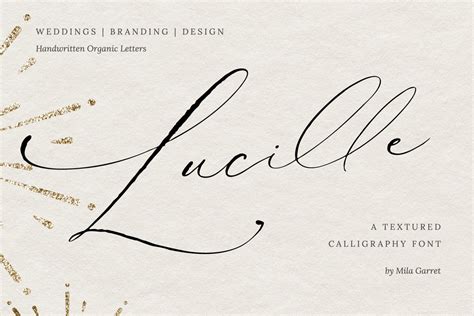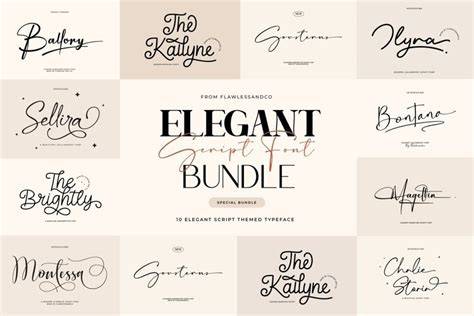
Best Script Fonts For Elegant Designs
Readers, have you ever been captivated by a design that seems to exude sophistication and charm? Often, the secret ingredient lies within the choice of font. Script fonts, with their flowing curves and graceful characters, possess an inherent elegance that can elevate any design project. But navigating through the vast world of script fonts can feel overwhelming. You want the perfect font to encapsulate the essence of your design, but with so many options, where do you even begin?
Don't worry, we've got you covered. As seasoned designers who have explored the realm of script fonts extensively, we've compiled a list of the best script fonts for creating elegant and captivating designs. We'll dive deep into each font, highlighting its unique characteristics and how it can be used to achieve stunning visual results. So, buckle up and prepare to embark on a journey into the world of script fonts!
Understanding the Essence of Script Fonts
Script fonts, often referred to as cursive fonts, are inspired by handwritten calligraphy. They emulate the fluid strokes of a pen, adding a touch of personality and artistry to text. This handwritten quality brings a sense of warmth, authenticity, and elegance that other font styles may lack. It's no wonder that script fonts have become a staple in branding, wedding invitations, and other projects where a touch of sophistication is desired.
The key to choosing the right script font lies in understanding its unique characteristics. Some fonts are more formal and traditional, while others are playful and contemporary. The weight, slant, and embellishments of a script font all contribute to its overall feel. By carefully selecting a script font, you can communicate a specific mood or message to your audience.
The Power of Script Fonts
Script fonts possess a unique power to evoke a certain charm and sophistication. They add a touch of warmth and personality to text, making it more engaging and inviting. From logos to invitations, script fonts can elevate any design project.
One of the primary reasons script fonts are so effective is their ability to create a sense of handwritten elegance. They mimic the graceful strokes of a pen, bringing a touch of authenticity and artistry to the design. This handwritten quality resonates with audiences, making them feel a connection with the message.
Script fonts are incredibly versatile. They can be used for a wide range of projects, from formal invitations and elegant branding to playful website designs and social media graphics. Their adaptability makes them a valuable asset for any designer's toolkit.
Exploring Script Font Styles
Script fonts come in a wide range of styles. Each style reflects a different aesthetic and evokes distinct emotions. Here are some common styles to consider:
**Formal Script Fonts:** These fonts tend to be more traditional and sophisticated. They often feature elegant curves and swashes, perfect for projects that call for a refined and timeless look. Examples include Playfair Display, Lora, and Dancing Script.
**Casual Script Fonts:** This category includes fonts that are more laid-back and approachable. They often feature simpler strokes and a more relaxed feel. Examples include Pacifico, Amatic SC, and Lobster Two.
**Modern Script Fonts:** These fonts embrace contemporary design principles. They often feature clean lines, minimal embellishments, and a sleek aesthetic. Examples include Montserrat, Lato, and Open Sans.
**Bold Script Fonts:** Bold script fonts make a statement with their strong strokes and dramatic curves. They are often used to add a touch of drama or emphasize specific text elements. Examples include Brush Script, Alex Brush, and Blackoak.
Top Script Fonts for Elegant Designs
Now that we've explored the world of script fonts, let's dive into a curated list of the best script fonts for achieving elegance in your designs. These fonts have been carefully selected for their versatility, beauty, and readability.
1. Playfair Display
Playfair Display is a serif font that embodies elegance and sophistication. Its unique character shapes and bold strokes add a touch of drama to any design. It's particularly well-suited for headlines, titles, and branding elements.
Playfair Display is renowned for its versatility. Its elegant aesthetic can be applied to various projects, from formal invitations to sophisticated website designs. Its readability ensures that your message remains clear and engaging, even with its bold strokes and unique character shapes.
2. Lora
Lora is a serif font that embodies elegance and readability. Its classic design and graceful curves make it a perfect choice for body text, particularly in projects that require a touch of sophistication.
Lora is renowned for its exceptional readability. Its clear character shapes and consistent spacing ensure that text remains easy to read, even at smaller sizes. This makes it ideal for long-form content and projects where readability is paramount.
3. Dancing Script
Dancing Script is a script font that captures the essence of handwritten calligraphy. Its fluid strokes and playful curves make it a perfect choice for adding a touch of charm and personality to any design.
Dancing Script is incredibly versatile. It can be used for a wide range of projects, from invitations and logos to social media graphics and website designs. Its playful aesthetic adds a touch of warmth and whimsy to any design, making it a popular choice for projects aimed at a younger audience.
4. Pacifico
Pacifico is a casual script font that exudes a laid-back and approachable vibe. Its simple strokes and rounded curves make it a perfect choice for projects that require a touch of playfulness and warmth.
Pacifico is incredibly versatile. It can be used for a wide range of projects, from website designs and social media graphics to logos and branding elements. Its ability to blend seamlessly with various design styles makes it a valuable asset for any designer's toolkit.
5. Amatic SC
Amatic SC is a casual script font that embodies a playful and quirky aesthetic. Its unique character shapes and bold strokes make it a perfect choice for adding a touch of personality to any design.
Amatic SC is incredibly versatile. It can be used for a wide range of projects, from website designs and social media graphics to logos and branding elements. Its ability to stand out from the crowd makes it a popular choice for projects aimed at a younger audience.
6. Lobster Two
Lobster Two is a playful script font that exudes a fun and whimsical aesthetic. Its distinctive character shapes and strong strokes make it a perfect choice for adding a touch of personality to any design.
Lobster Two is incredibly versatile. It can be used for a wide range of projects, from website designs and social media graphics to logos and branding elements. Its ability to attract attention makes it a popular choice for projects aimed at a younger audience.
7. Montserrat
Montserrat is a modern script font that embodies a clean and minimalist aesthetic. Its sharp edges and geometric shapes make it a perfect choice for projects that require a touch of sophistication and modernity.
Montserrat is incredibly versatile. It can be used for a wide range of projects, from website designs and social media graphics to logos and branding elements. Its ability to create a sense of professionalism and sleekness makes it a popular choice for projects aimed at a discerning audience.
8. Lato
Lato is a modern script font that embodies a clean and minimalist aesthetic. Its sharp edges and geometric shapes make it a perfect choice for projects that require a touch of sophistication and modernity.
Lato is incredibly versatile. It can be used for a wide range of projects, from website designs and social media graphics to logos and branding elements. Its ability to create a sense of professionalism and sleekness makes it a popular choice for projects aimed at a discerning audience.
9. Open Sans
Open Sans is a modern script font that embodies a clean and minimalist aesthetic. Its sharp edges and geometric shapes make it a perfect choice for projects that require a touch of sophistication and modernity.
Open Sans is incredibly versatile. It can be used for a wide range of projects, from website designs and social media graphics to logos and branding elements. Its ability to create a sense of professionalism and sleekness makes it a popular choice for projects aimed at a discerning audience.
10. Brush Script
Brush Script is a bold script font that embodies a dramatic and expressive aesthetic. Its thick strokes and flowing curves make it a perfect choice for adding a touch of personality and impact to any design.
Brush Script is incredibly versatile. It can be used for a wide range of projects, from website designs and social media graphics to logos and branding elements. Its ability to attract attention makes it a popular choice for projects aimed at a creative and expressive audience.
11. Alex Brush
Alex Brush is a bold script font that embodies a dramatic and expressive aesthetic. Its thick strokes and flowing curves make it a perfect choice for adding a touch of personality and impact to any design.
Alex Brush is incredibly versatile. It can be used for a wide range of projects, from website designs and social media graphics to logos and branding elements. Its ability to attract attention makes it a popular choice for projects aimed at a creative and expressive audience.
12. Blackoak
Blackoak is a bold script font that embodies a dramatic and expressive aesthetic. Its thick strokes and flowing curves make it a perfect choice for adding a touch of personality and impact to any design.
Blackoak is incredibly versatile. It can be used for a wide range of projects, from website designs and social media graphics to logos and branding elements. Its ability to attract attention makes it a popular choice for projects aimed at a creative and expressive audience.
Tips for Using Script Fonts in Your Designs
Script fonts, with their inherent elegance and charm, can elevate any design project. However, using them effectively requires a keen understanding of their strengths and limitations. Here are some tips to help you make the most of these beautiful fonts:
1. Choose the Right Font for the Occasion
Remember, not all script fonts are created equal. Each font has its own personality and aesthetic. Consider the tone and message of your design and select a font that aligns with it. For formal projects, a traditional script font like Playfair Display or Lora might be the perfect choice. For more playful projects, a casual script font like Pacifico or Amatic SC might be a better fit.
2. Balance Script Fonts with Other Styles
Script fonts are often used in combination with other font styles, such as sans-serif or serif fonts. This creates a visually appealing contrast and adds depth to the design. For example, you might use a script font for a headline and a sans-serif font for body text. This combination allows for a balanced design that is both aesthetically pleasing and easy to read.
3. Use Script Fonts Sparingly
Script fonts work best when used sparingly. Too much script font can overwhelm the design and make it difficult to read. Use them for key elements, such as headlines, titles, and branding elements.
4. Pay Attention to Readability
Readability is crucial, especially when using script fonts. Some script fonts, with their flowing curves and complex strokes, can be difficult to read, particularly at smaller sizes. When selecting a script font, choose one that is legible and ensure that the kerning and spacing are appropriate.
5. Consider the Font Weight
The weight of a script font can significantly impact its overall feel. Light or thin weights provide a delicate and graceful aesthetic, while bold weights create a more dramatic and impactful effect. Choose a font weight that aligns with the tone and message of your design.
6. Pay Attention to Letter Spacing
Letter spacing, also known as kerning, plays a crucial role in readability. Adjust the letter spacing to ensure that the letters are spaced appropriately, making the text easy to read. Too much spacing can make the text look sparse, while too little spacing can make it feel cramped.
7. Experiment with Color
Color can transform a script font. Consider the overall color scheme of your design and choose a color that complements the script font. Bold colors can add impact and energy, while neutral colors provide a sense of sophistication and elegance.
8. Don’t Overdo Embellishments
Many script fonts feature embellishments, such as swashes or flourishes. While embellishments can add a touch of personality, too many can make the text difficult to read. Use embellishments sparingly and consider the overall tone and message of your design.
Best Practices for Choosing and Using Script Fonts
Choosing the right script font can make a world of difference in your designs. Here are some best practices to guide your selections:
1. Understand Your Project’s Purpose
Before diving into the vast world of script fonts, take a moment to understand the purpose of your project. What message do you want to convey? What is the overall tone and style? These questions will help you narrow down your choices and select a font that aligns with your vision.
2. Explore Different Font Libraries
There are countless font libraries available online, both free and paid. These libraries offer a wide variety of script fonts, allowing you to explore different styles and find the perfect fit for your project. Some popular font libraries include Google Fonts, Adobe Fonts, and Font Squirrel.
3. Consider Readability
Readability is paramount, especially when using script fonts. Choose a font that is legible and easy to read, even at smaller sizes. Look for fonts with clear character shapes and consistent spacing.
4. Pay Attention to Licensing
Before incorporating a font into your design, ensure that you understand the licensing terms. Some fonts are free for personal use only, while others require a commercial license. Make sure to choose a font that aligns with your project’s needs and avoid any potential copyright issues.
5. Experiment with Different Combinations
Don't be afraid to experiment with different font combinations. Script fonts can be paired with other font styles to create visually appealing and balanced designs. For example, you might use a script font for a headline and a sans-serif font for body text.
6. Seek Feedback from Others
Get feedback from others on your font choice. A fresh perspective can provide valuable insights and help you make an informed decision.
FAQ: Common Questions about Script Fonts
What are the best script fonts for branding?
Playfair Display, Lora, and Dancing Script are popular choices for branding. Playfair Display offers a refined and sophisticated aesthetic, while Lora is renowned for its readability. Dancing Script adds a touch of charm and personality.
What script fonts are best for invitations?
Dancing Script, Pacifico, and Amatic SC are widely used for invitations. Dancing Script adds a touch of elegance, Pacifico brings a casual and playful vibe, and Amatic SC exudes a quirky and unique aesthetic.
How can I improve the readability of script fonts?
Choose a font with clear character shapes, adjust letter spacing (kerning) appropriately, and ensure proper line height. Avoid using script fonts extensively in body text, and consider pairing them with other font styles.
Script fonts, with their captivating beauty and elegance, can add a touch of sophistication to any design project. But choosing the right script font requires a thoughtful approach, considering factors like style, readability, and overall message. This article has delved into the world of script fonts, offering a curated list of top choices and tips for using them effectively. We've also touched upon best practices for selecting and incorporating script fonts into your designs.